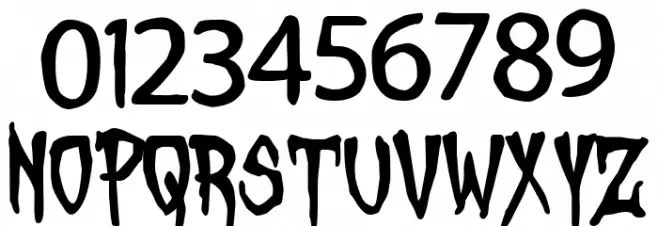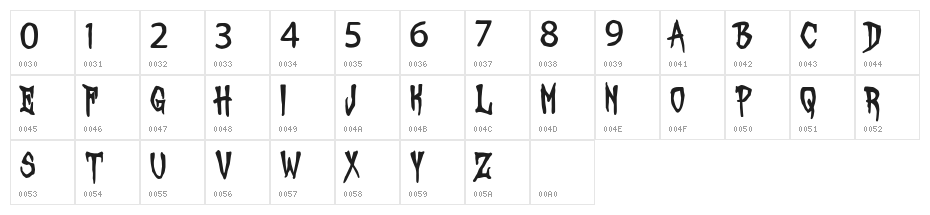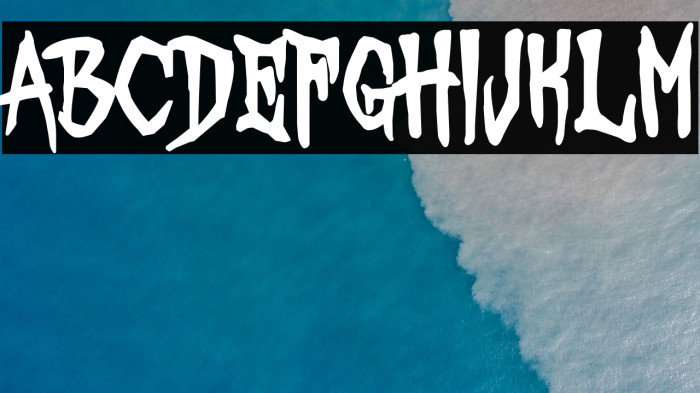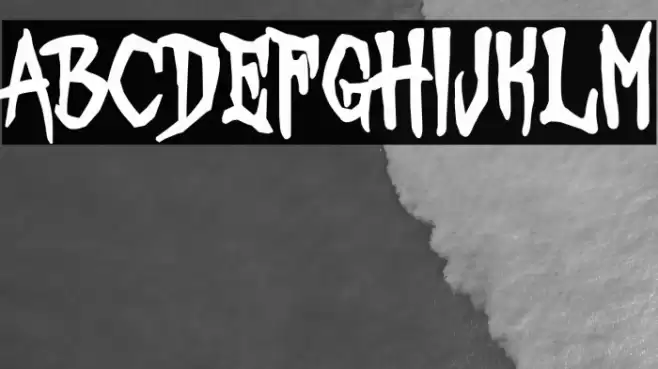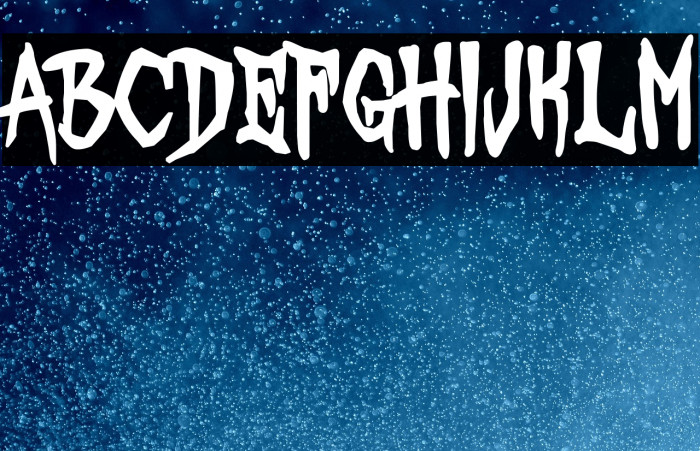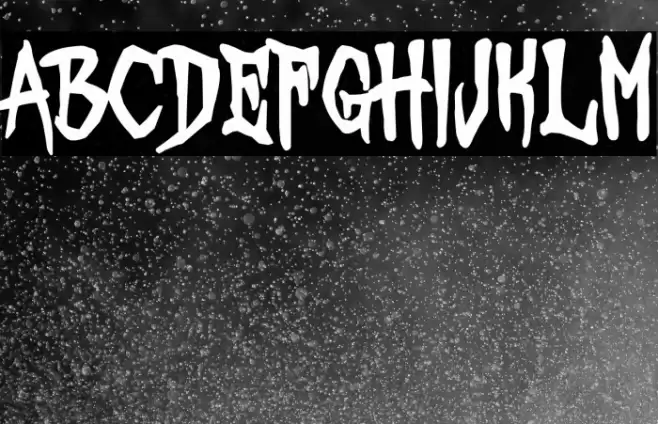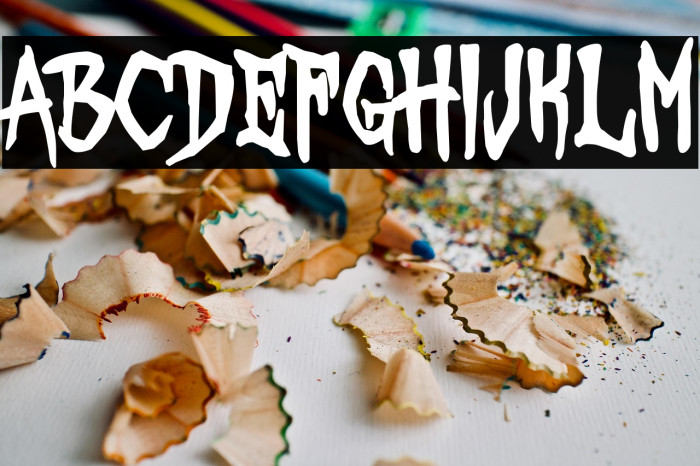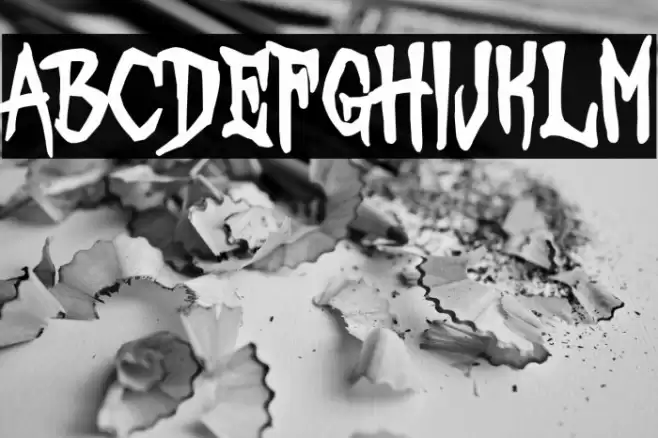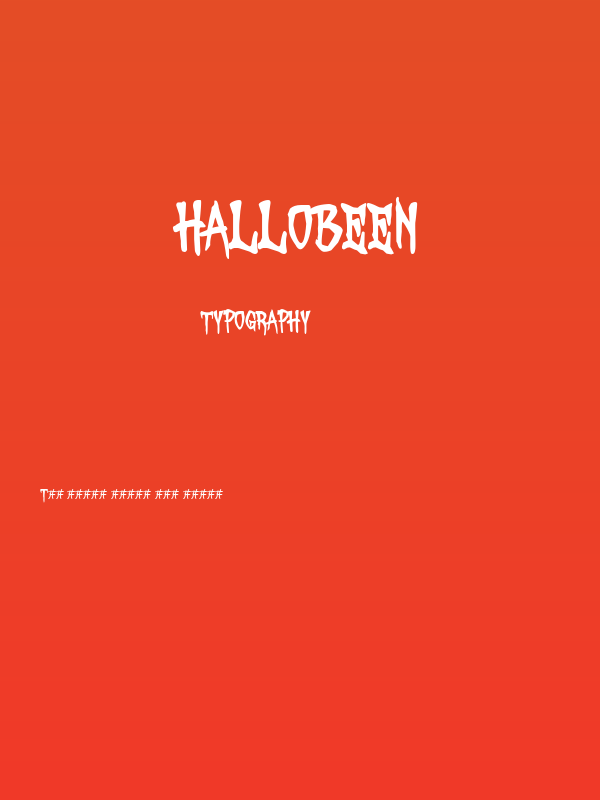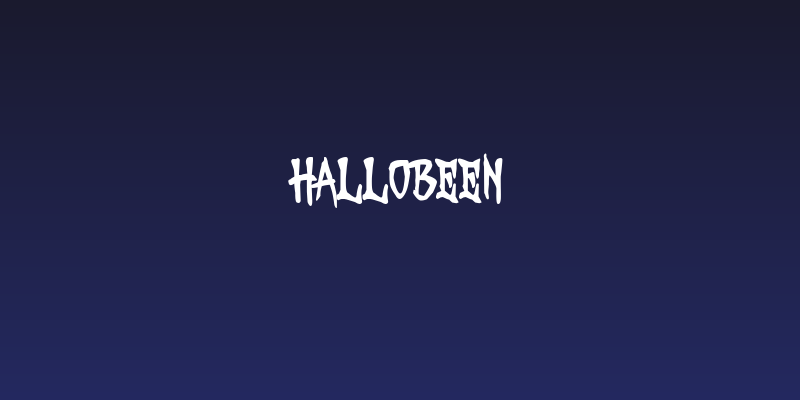
HalloBeen Font
HalloBeen Description
This font features a bold and expressive style with a hand-drawn appearance, reminiscent of graffiti or street art. The characters are irregular and dynamic, with varying stroke widths that give a sense of movement and energy. The uppercase and lowercase letters maintain a consistent style, with exaggerated curves and sharp angles that create a visually striking effect. The numbers and special characters follow the same aesthetic, ensuring a cohesive look across all elements. This font is ideal for projects that require a bold and unconventional typeface.
| Proposed Projects | Perfect for posters, album covers, streetwear branding, and any project needing a bold, artistic touch. |